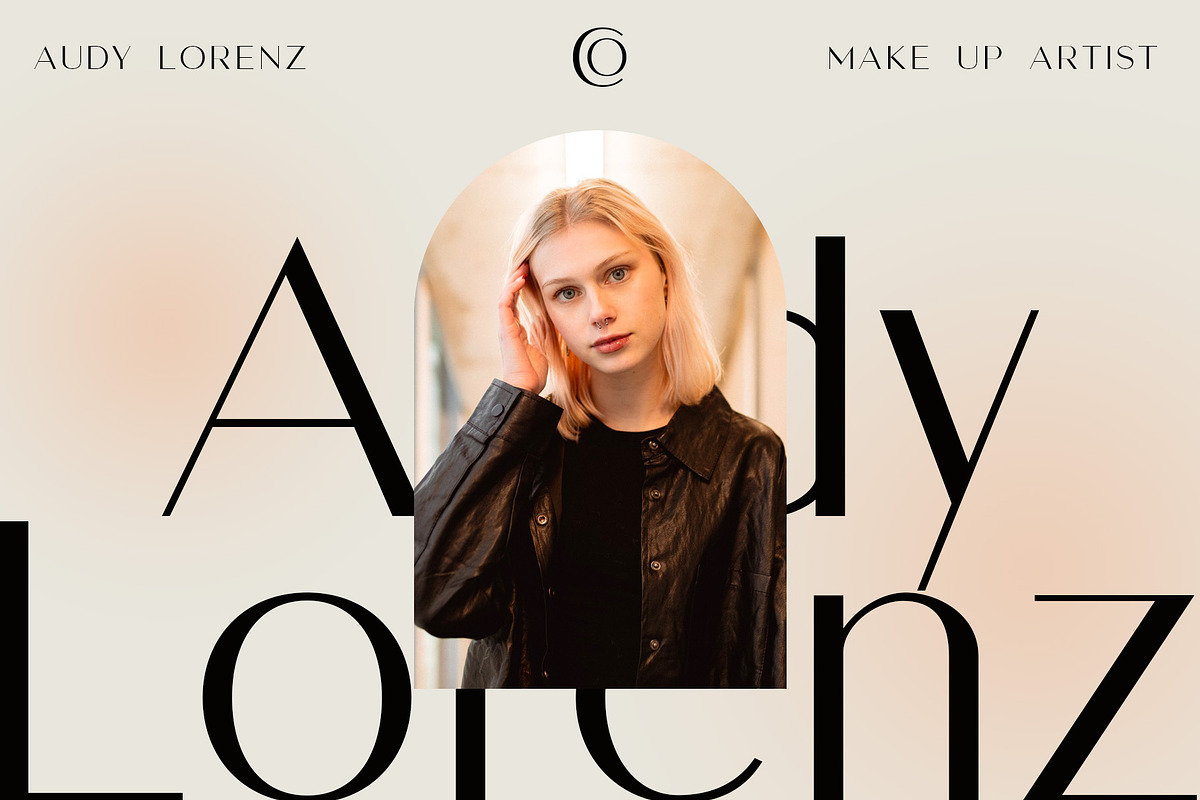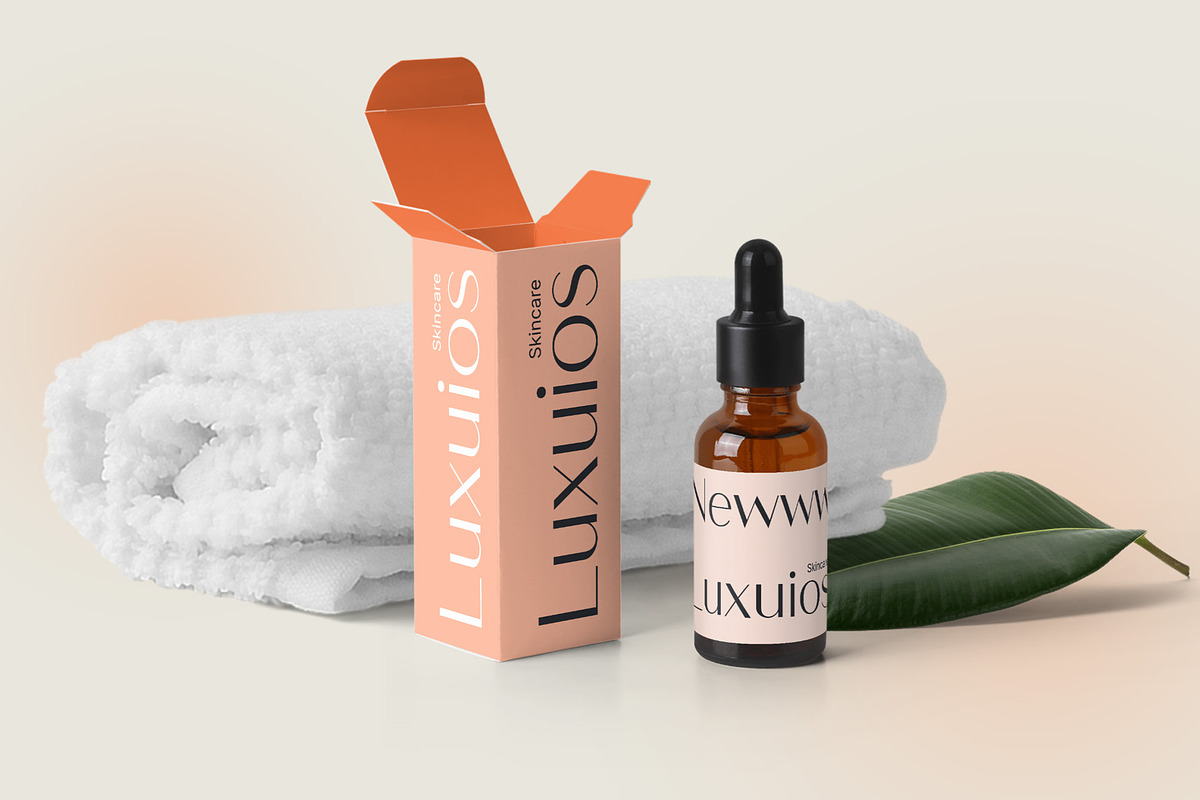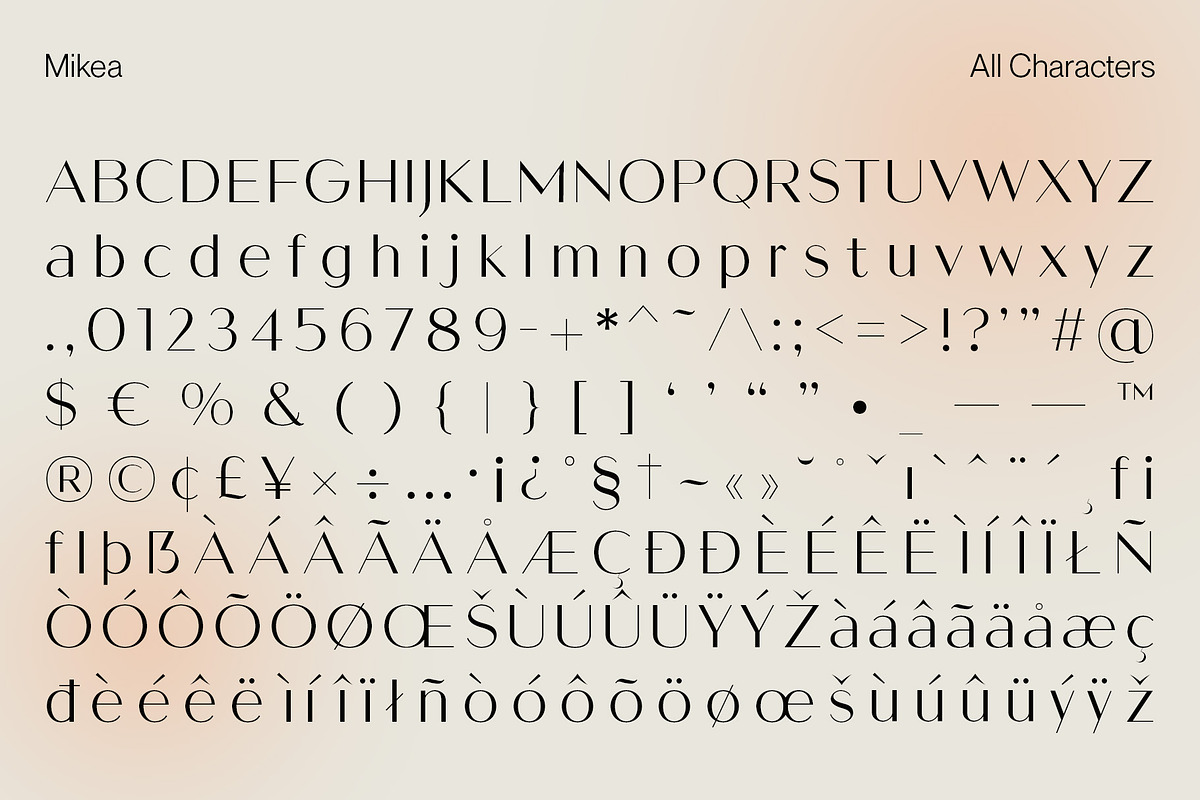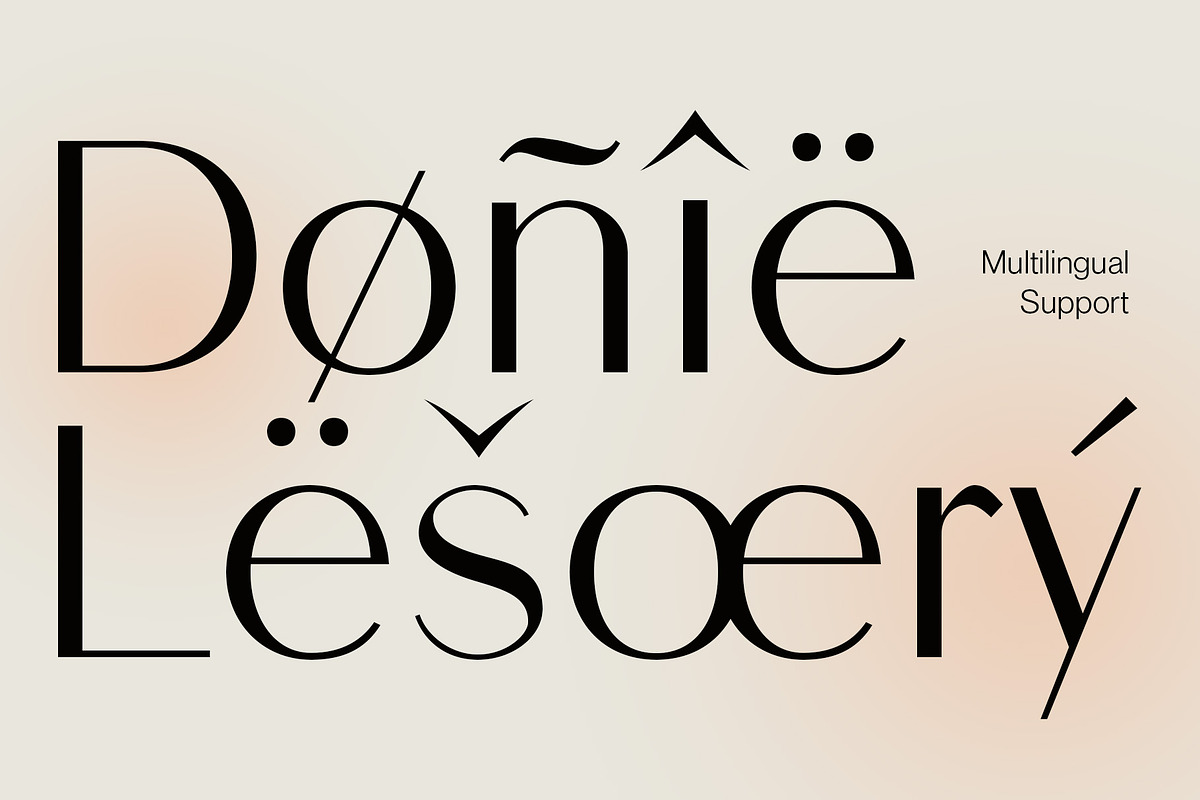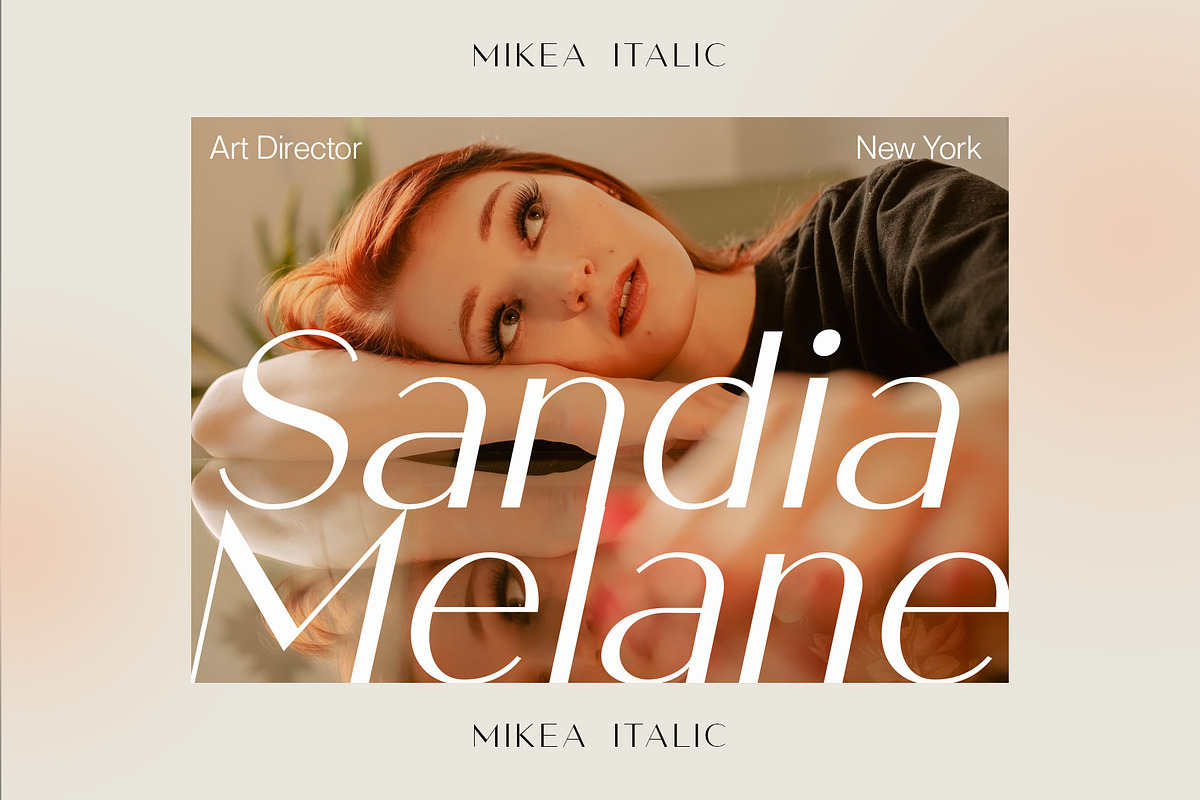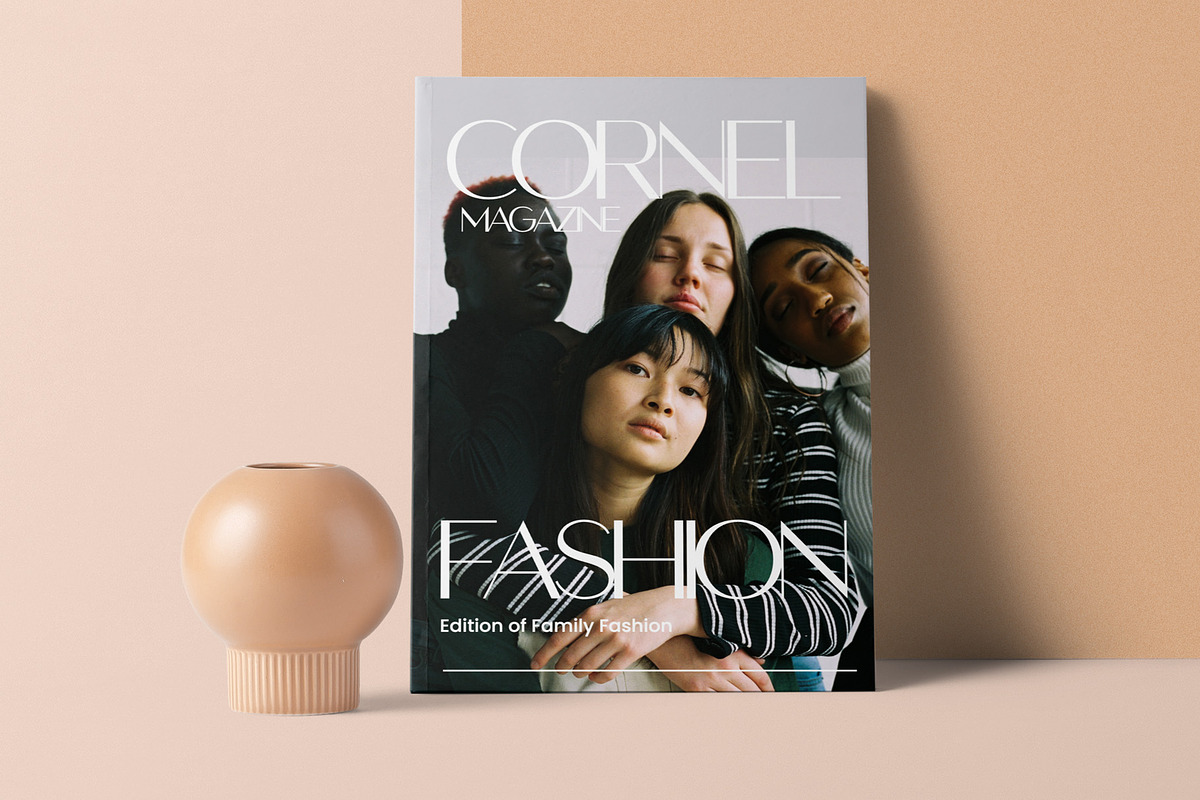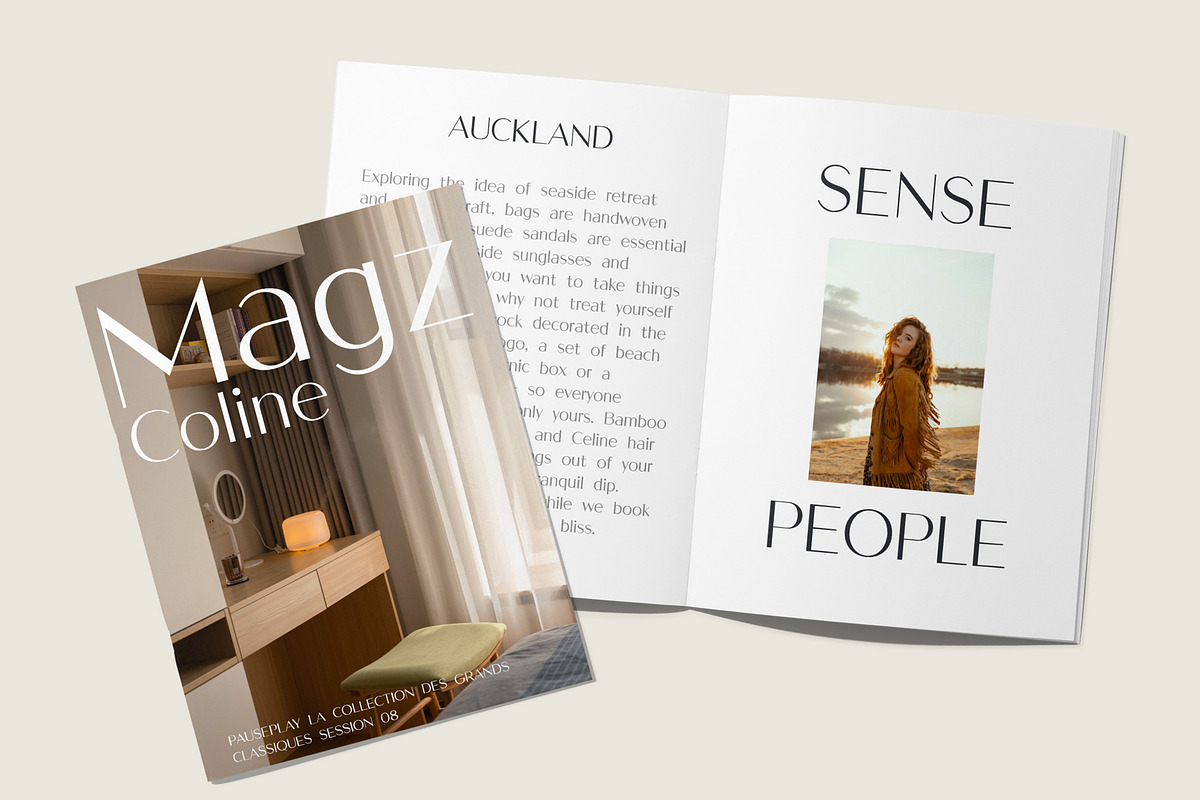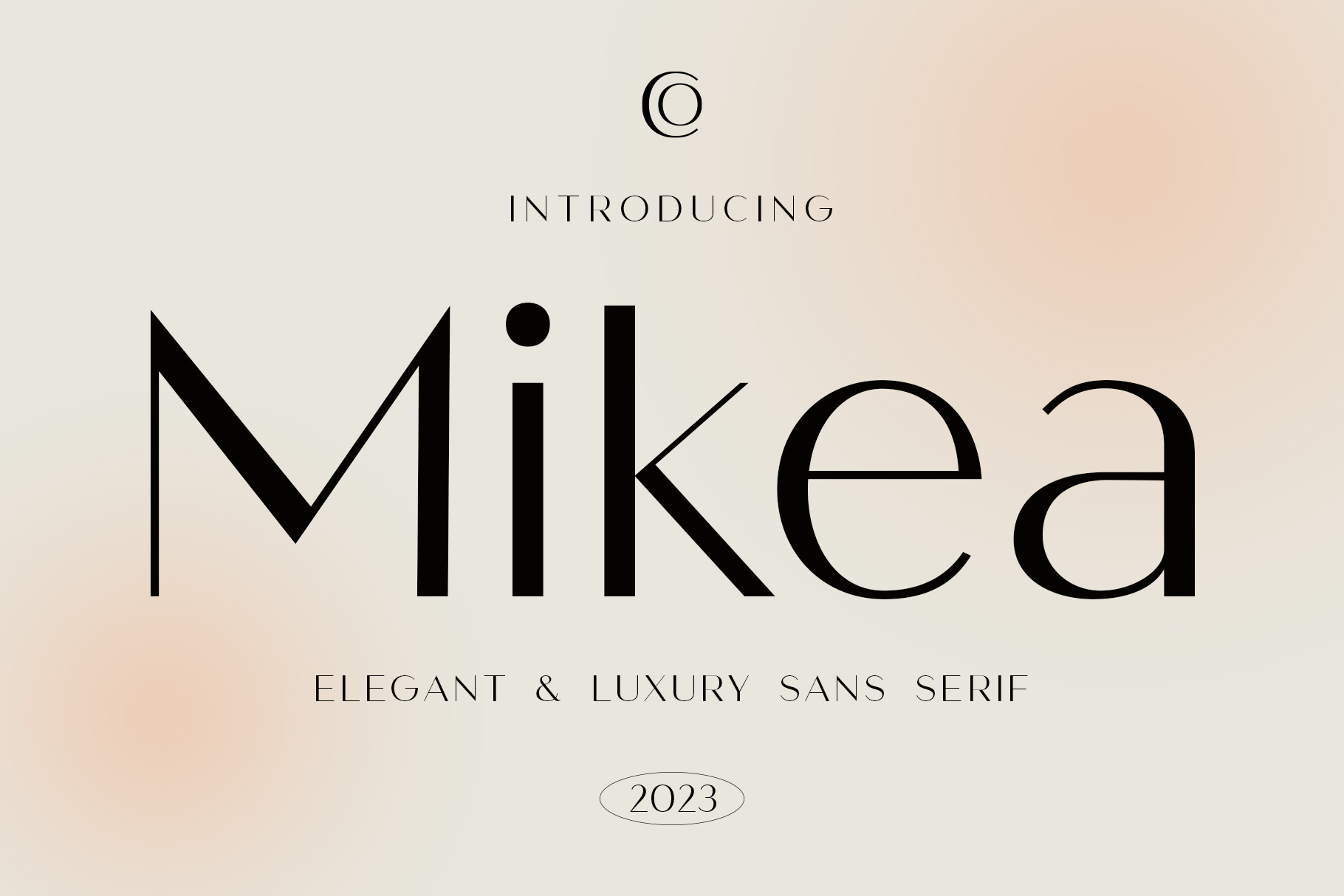
Mikea – Elegant Luxury Font
Introducing Mikea – Elegant Luxury Font
Elegance Personified
Mikea – Elegant Luxury Font is, without a doubt, the epitome of sophistication and class. It has been meticulously crafted to infuse a touch of opulence into your designs.
Luxury Redefined
Furthermore, this sans serif font exudes luxury in every letterform, making it an ideal choice for projects that require a sense of opulence and refinement. It takes the concept of luxury to a whole new level.
Timeless Elegance
Mikea encapsulates timeless elegance. It ensures that your designs maintain a sense of prestige and grandeur that stands the test of time. With Mikea, your work exudes a classic charm.
Perfect for Prestigious Projects
Whether it’s high-end branding, premium packaging, or upscale invitations, Mikea’s elegant luxury font elevates the perception of your projects to new heights. It is the ultimate choice for conveying prestige.
In Conclusion
In conclusion, Mikea – Elegant Luxury Font is your gateway to a world of sophistication and grandeur. With its timeless elegance and unparalleled refinement, it effortlessly adds a touch of luxury to your designs. When you choose Mikea, you choose the finest in typographic elegance, setting a standard of opulence and prestige that leaves a lasting impression.
- Mikea Regular
- Mikea Italic